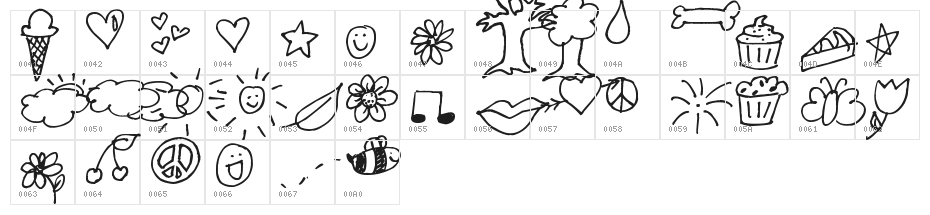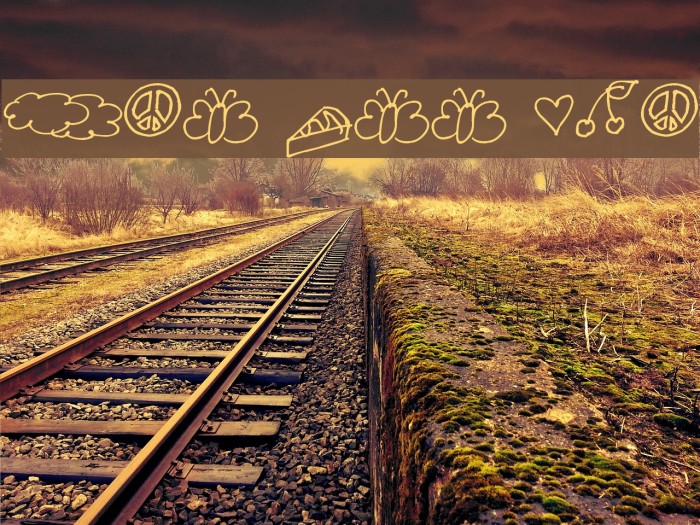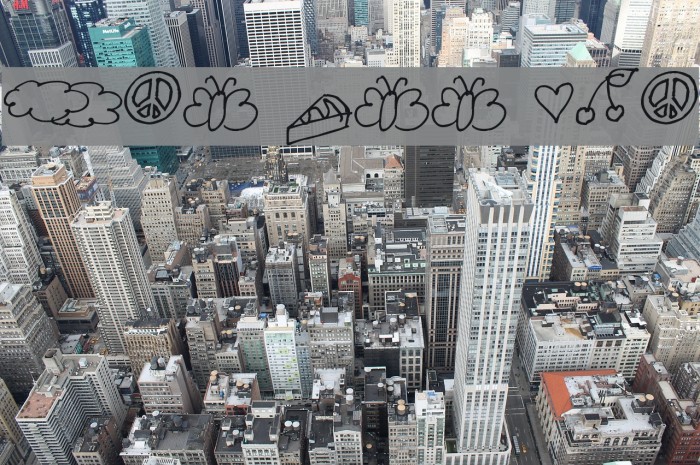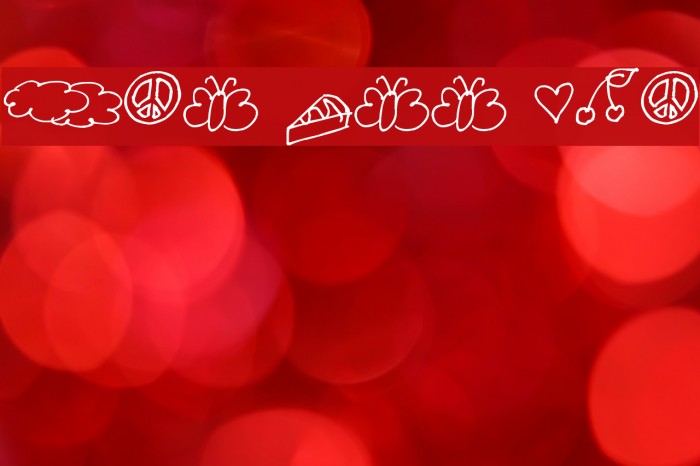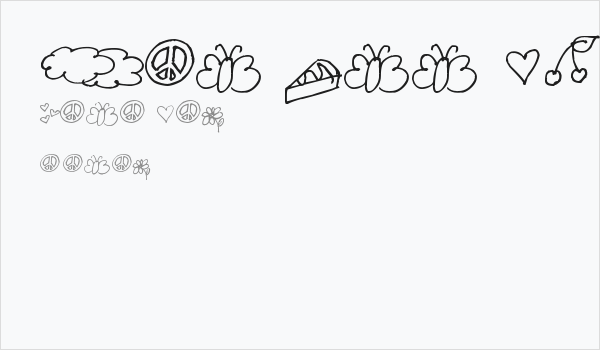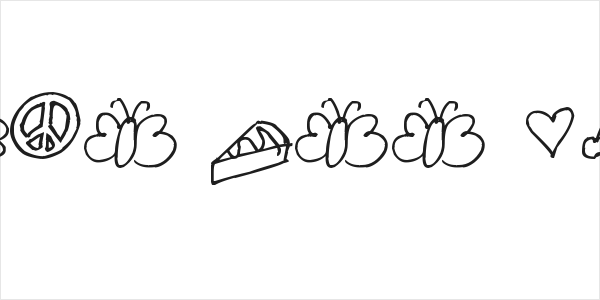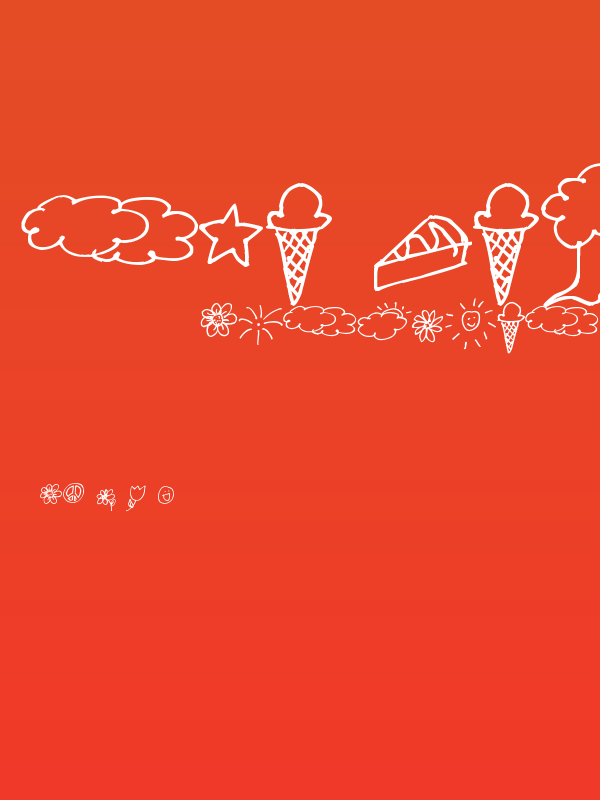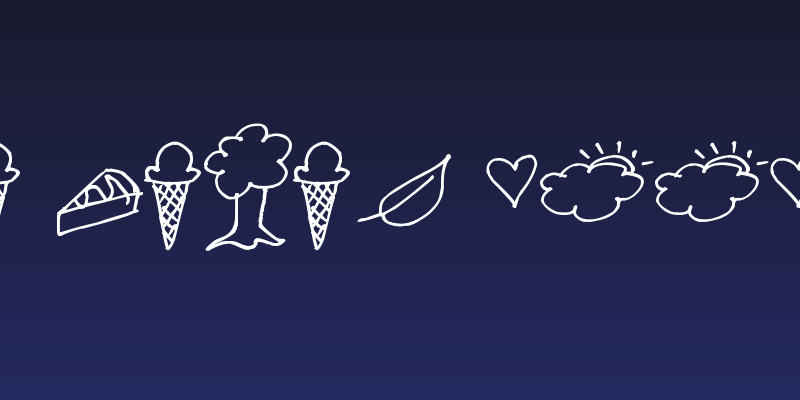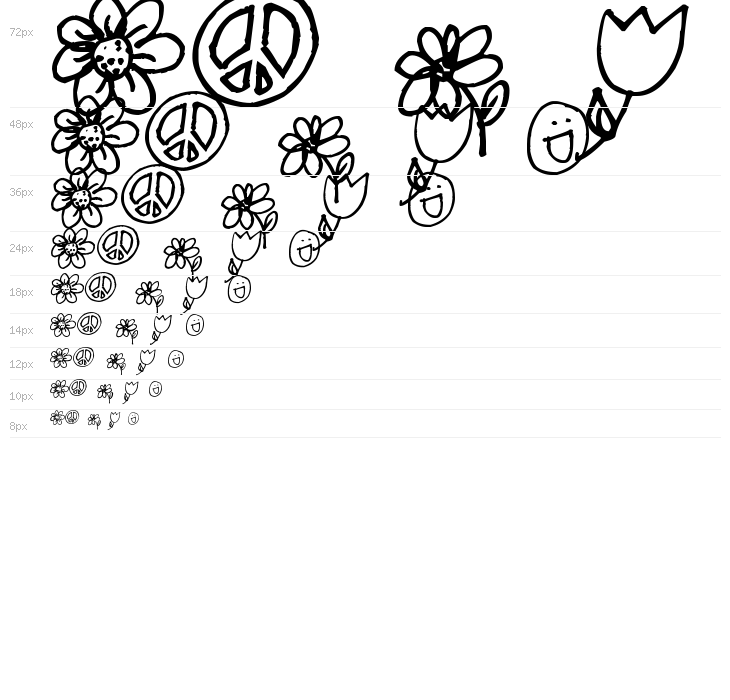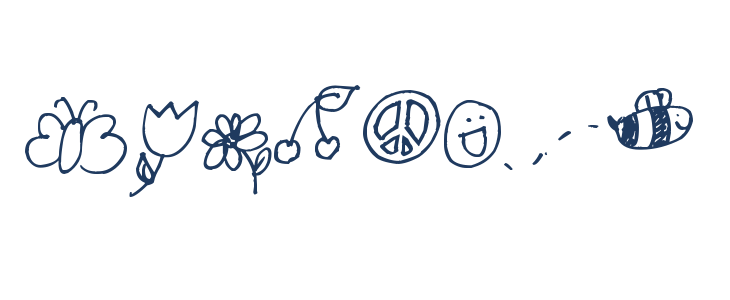
Pea Maia's Doodles Font
Pea Maia's Doodles Description
A playful, hand-drawn doodle style featuring whimsical icons such as hearts, stars, trees, flowers, food, and peace symbols, all rendered with a casual, sketchy line quality.
Overall StyleDecorative, Playful, Hand-drawn
Use CaseDecorative accents, icons, embellishments, informal projects.
Proposed ProjectsChildren's books, greeting cards, scrapbooking, educational materials, playful branding, social media graphics.